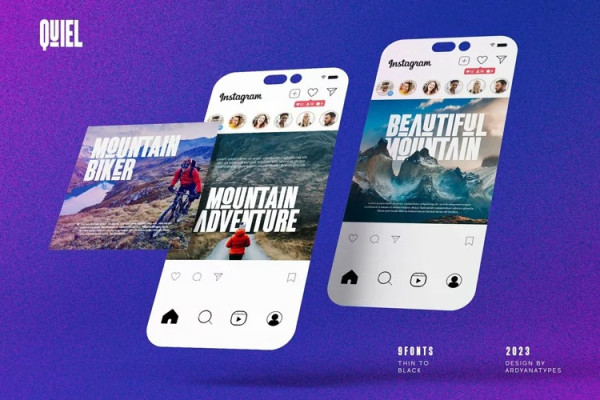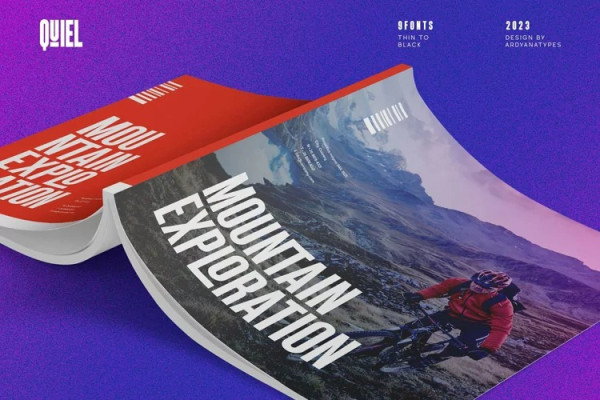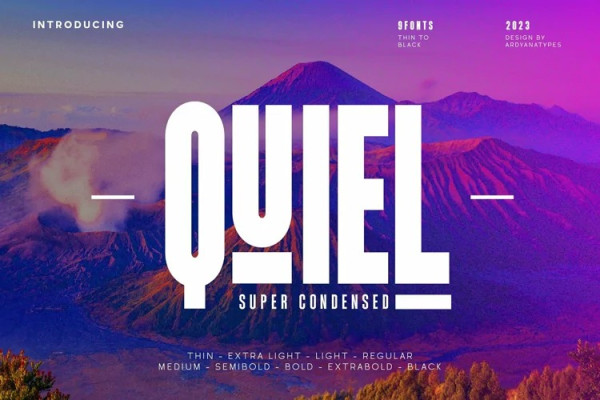
Quiel Font
Quiel Font is a stunning sans-serif font that is perfect for baptism ceremonies, branding, weddings, or even simple logos. With its beauty, Quieladds an elegant touch to important events such as baptism ceremonies and weddings. Moreover, this font is well-suited for branding purposes, helping to create a strong and professional identity. Even for simple logos, Quielcan provide an attractive and captivating impression. With its beauty and quality, Quiel is the perfect choice to enhance the appearance of your designs.